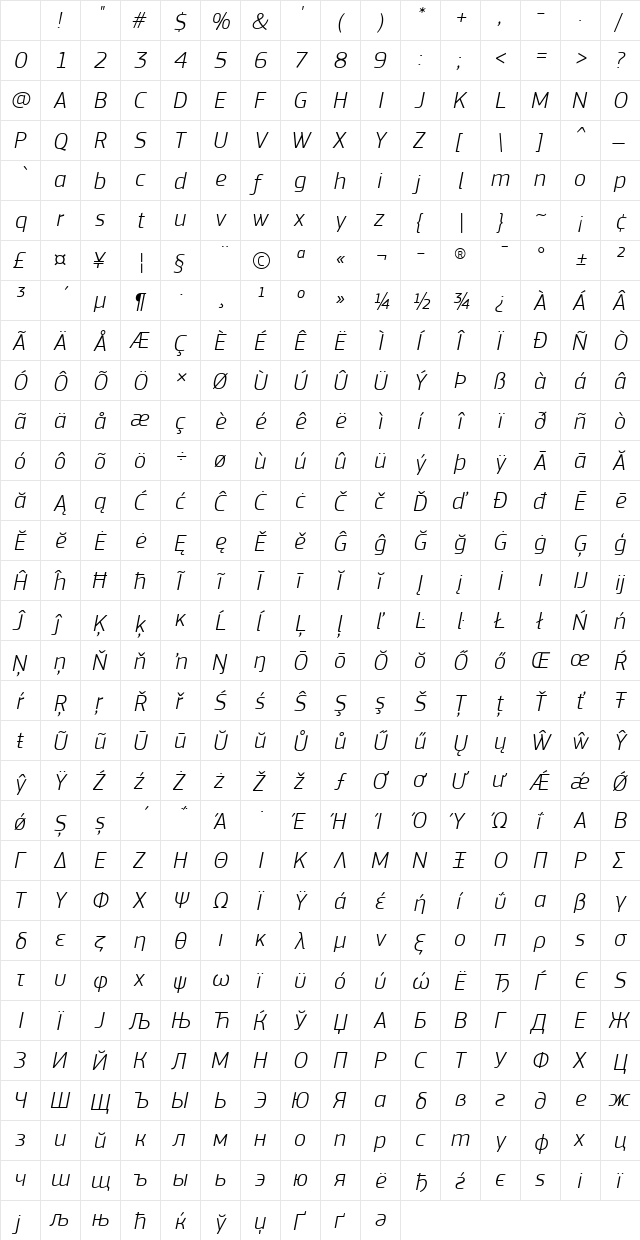
Complete PF Square Sans Pro Light Italic glyph index. Displaying only characters natively supported by PF Square Sans Pro Light Italic font.
PF Square Sans Pro is a composed and adaptable typeface that performs quietly and consistently across a wide range of design contexts. The slanted form adds forward momentum and visual energy. Its slender proportions lend an understated elegance to any composition.